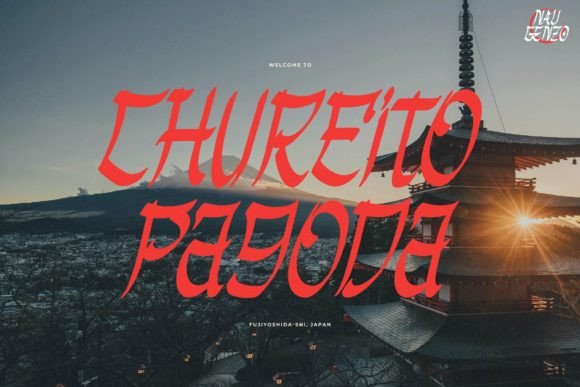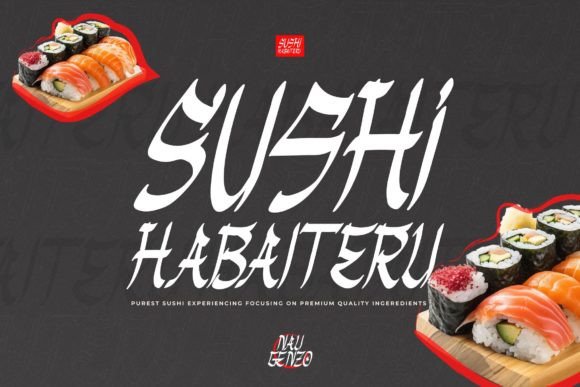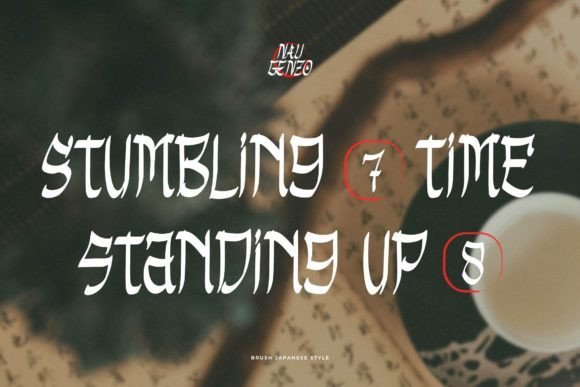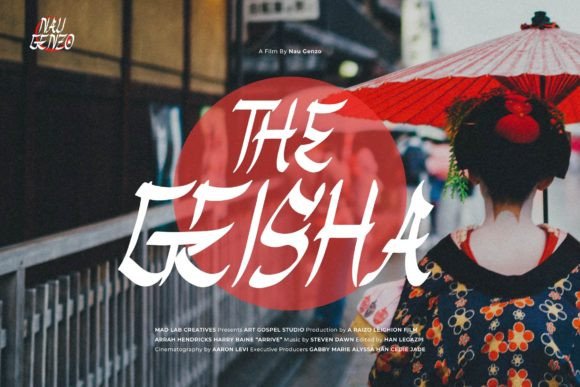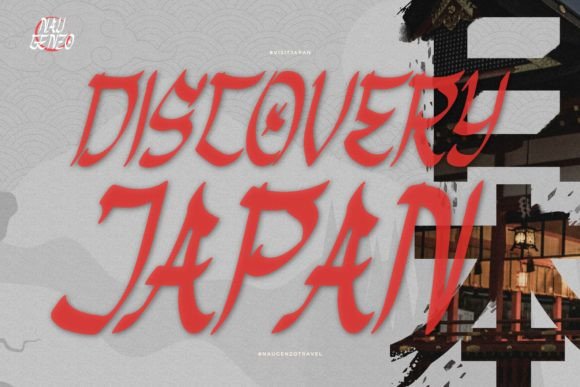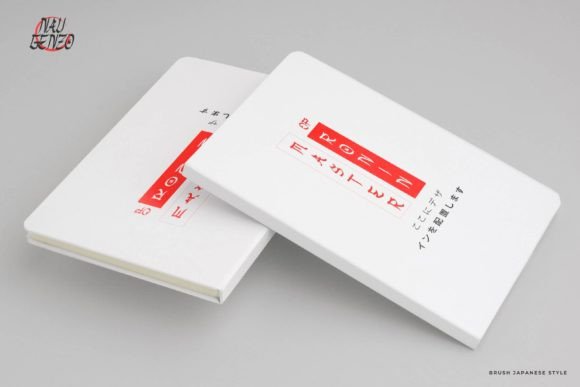
Introduction to Nau Genzo Font Font
Fonts play a crucial role in design, and the Nau Genzo Font font is a typeface that brings both character and versatility to any project. Whether you’re working on a branding project, a website, or a print design, the Nau Genzo Font font offers a unique style that can elevate your work.
| 📌 Font Name | Nau Genzo Font |
| 👤 Author | Denustudios |
Nau Genzo is a Japanese-style brush used for painting or calligraphy.
It has soft bristles that create smooth and flowing lines The brush is designed to give artists control over their strokes, making it ideal for traditional Japanese art techniques.
Key Features of Nau Genzo Font Font
Why Choose Nau Genzo Font Font?
The Nau Genzo Font font is more than just a typeface – it’s a design tool that helps you communicate your message with style and clarity. Its unique character set and versatile design make it suitable for a wide range of applications, from elegant invitations to bold headlines.
With its carefully crafted letterforms and balanced proportions, the Nau Genzo Font font ensures readability and visual appeal across all mediums.
What makes Nau Genzo Font font special?
The Nau Genzo Font font stands out with its unique design, exceptional readability, and versatility across various design applications.